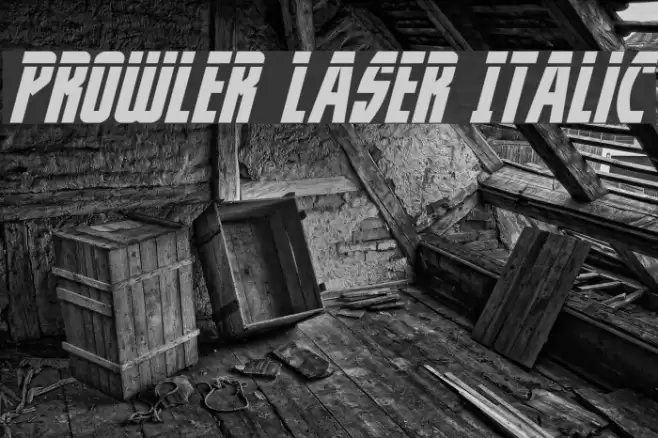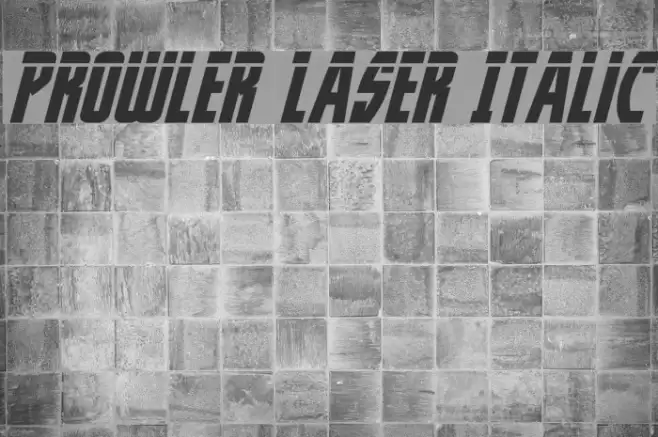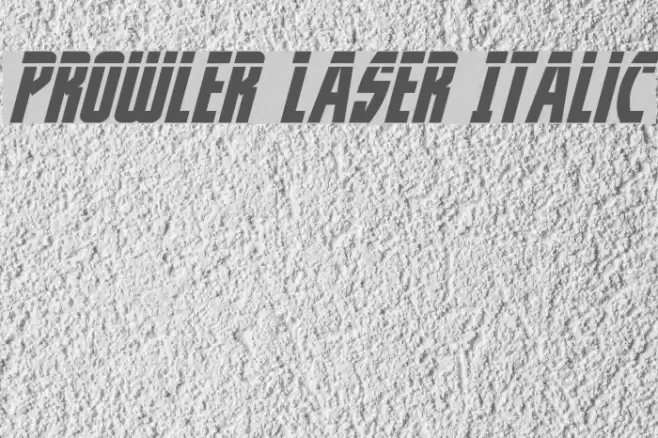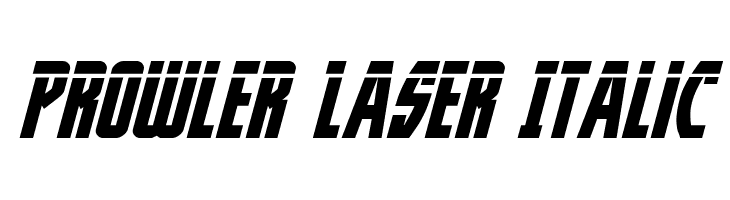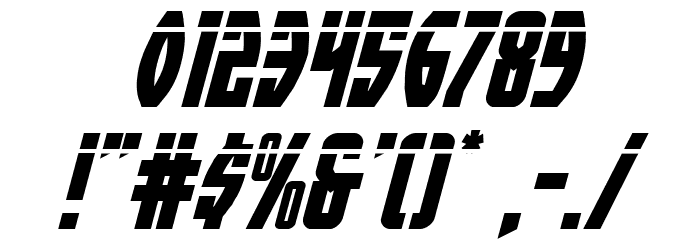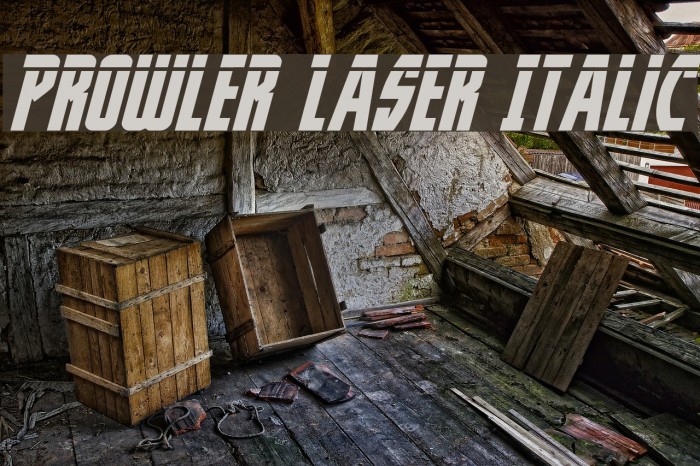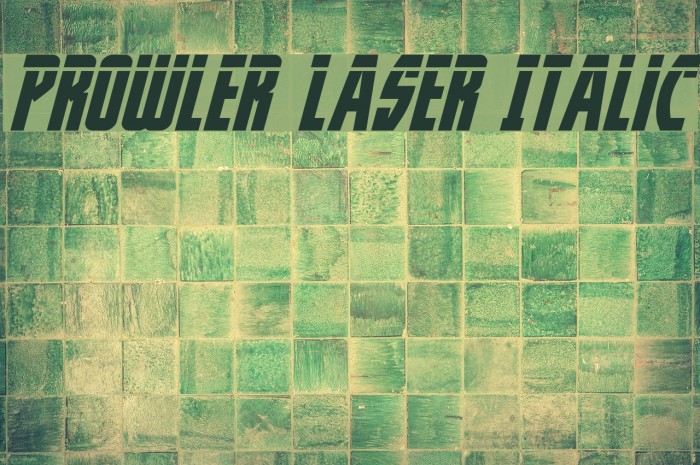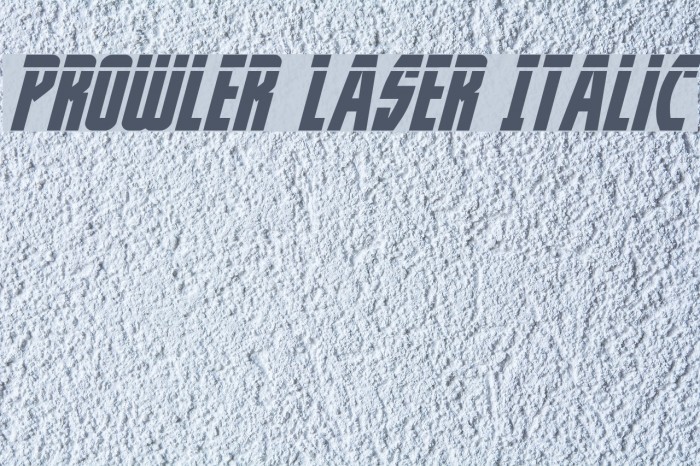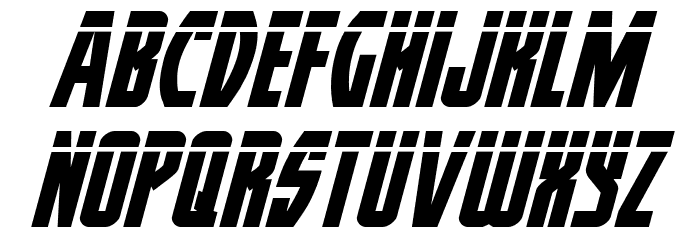
Prowler Laser Italic Font
Prowler Laser Italic Description
This font features a bold, italicized design with a futuristic and dynamic appearance. The characters are sharply angled, giving a sense of movement and speed. The uppercase and lowercase letters maintain a consistent slant, enhancing the italic style. The numbers and special characters follow the same design principles, ensuring uniformity across all glyphs. The strokes are thick, contributing to a high contrast between the character edges and the inner spaces. This font is ideal for projects that require a modern, edgy look with a touch of aggression and energy.
A bold, italicized font with a futuristic and dynamic style from Uncategorized fonts.
- Proposed Projects: Ideal for sports branding, video game titles, sci-fi movie posters, and dynamic advertising campaigns.